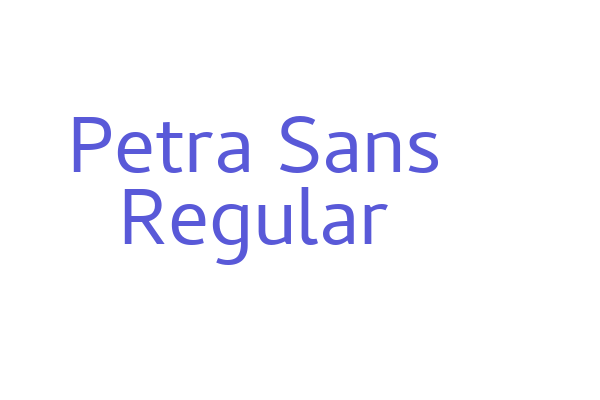
Petra Sans Regular is a sleek and modern sans serif font designed by Dave Crossland & Cristiano Sobral. Part of the Petra Sans font family, this typeface offers a clean and minimalist design perfect for a wide range of projects. Ideal for creating a professional and contemporary look, Petra Sans Regular is a versatile choice for both print and digital designs.
Font Name: Petra Sans Regular
Designer: Dave Crossland & Cristiano Sobral
Font Family: Petra Sans